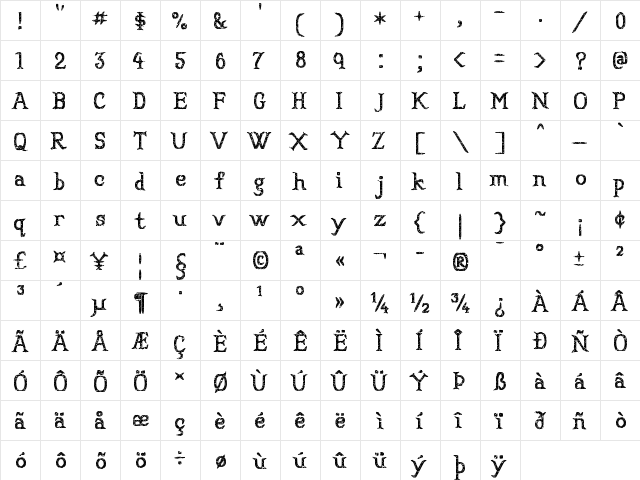
Convincing Pirate Regular
Design Context for Convincing Pirate Typeface
Convincing Pirate takes a measured approach to typography — its balanced proportions and neutral character make it a reliable workhorse for both digital and print work.
Pro Tip: Use Convincing Pirate in both headline and body roles to test its range before committing to a single application.